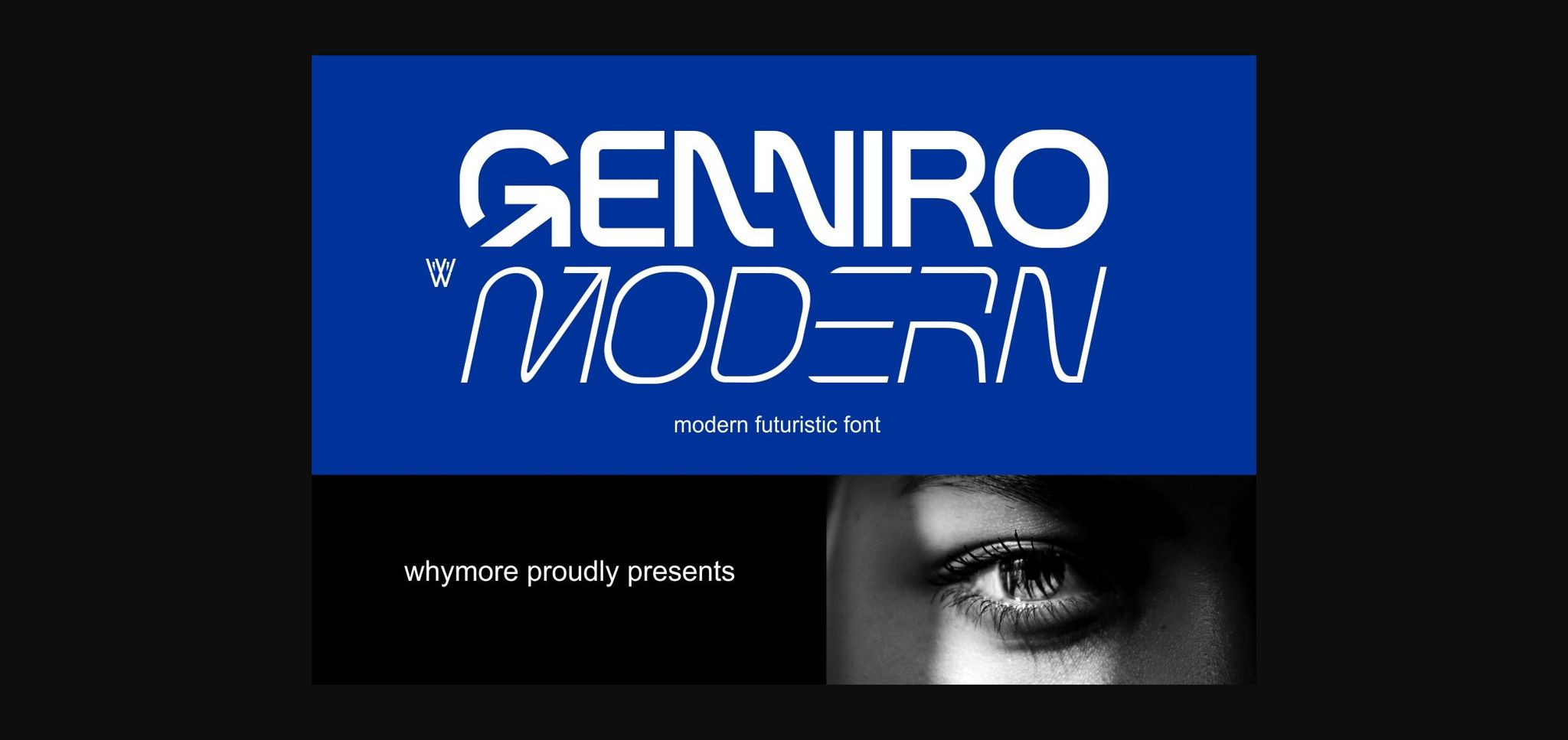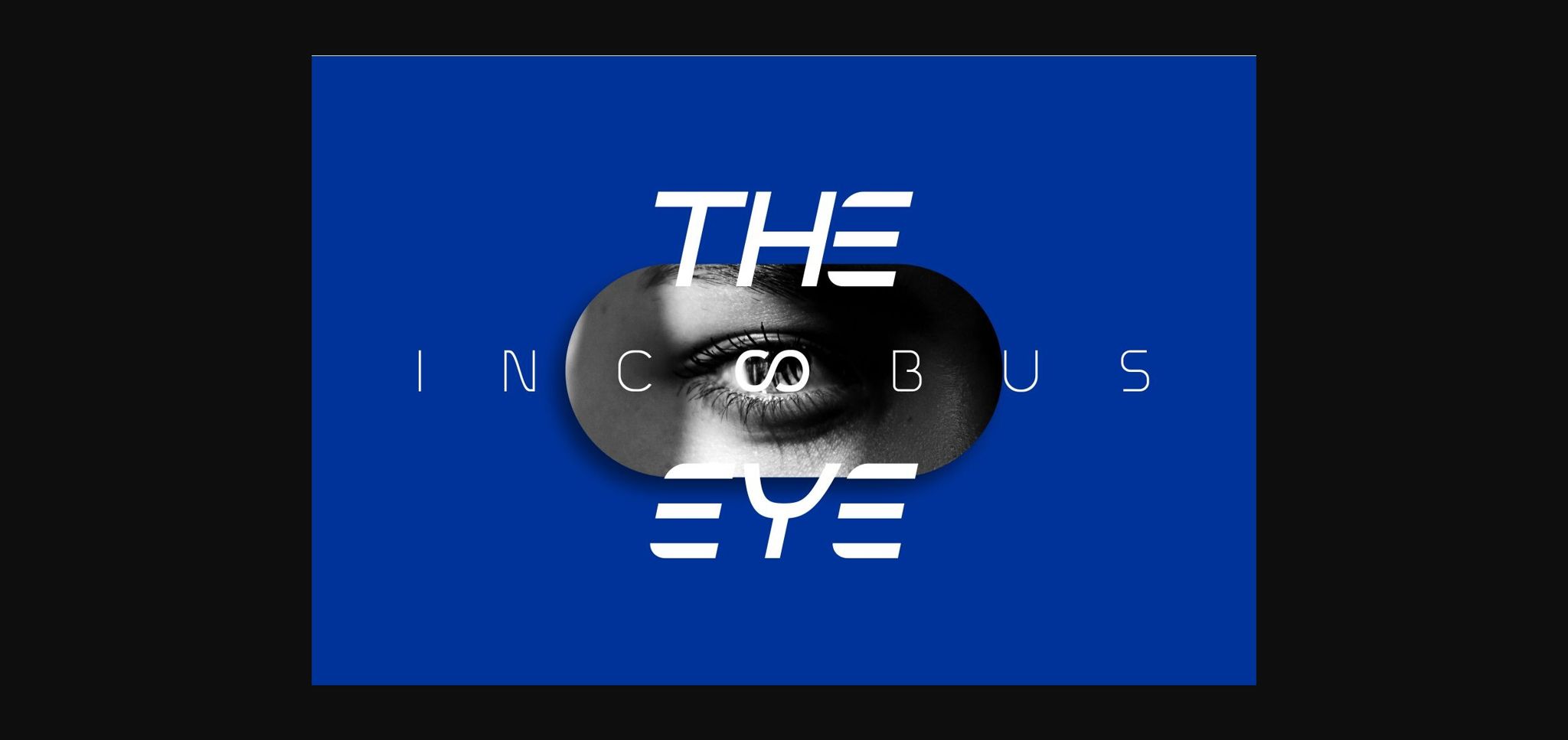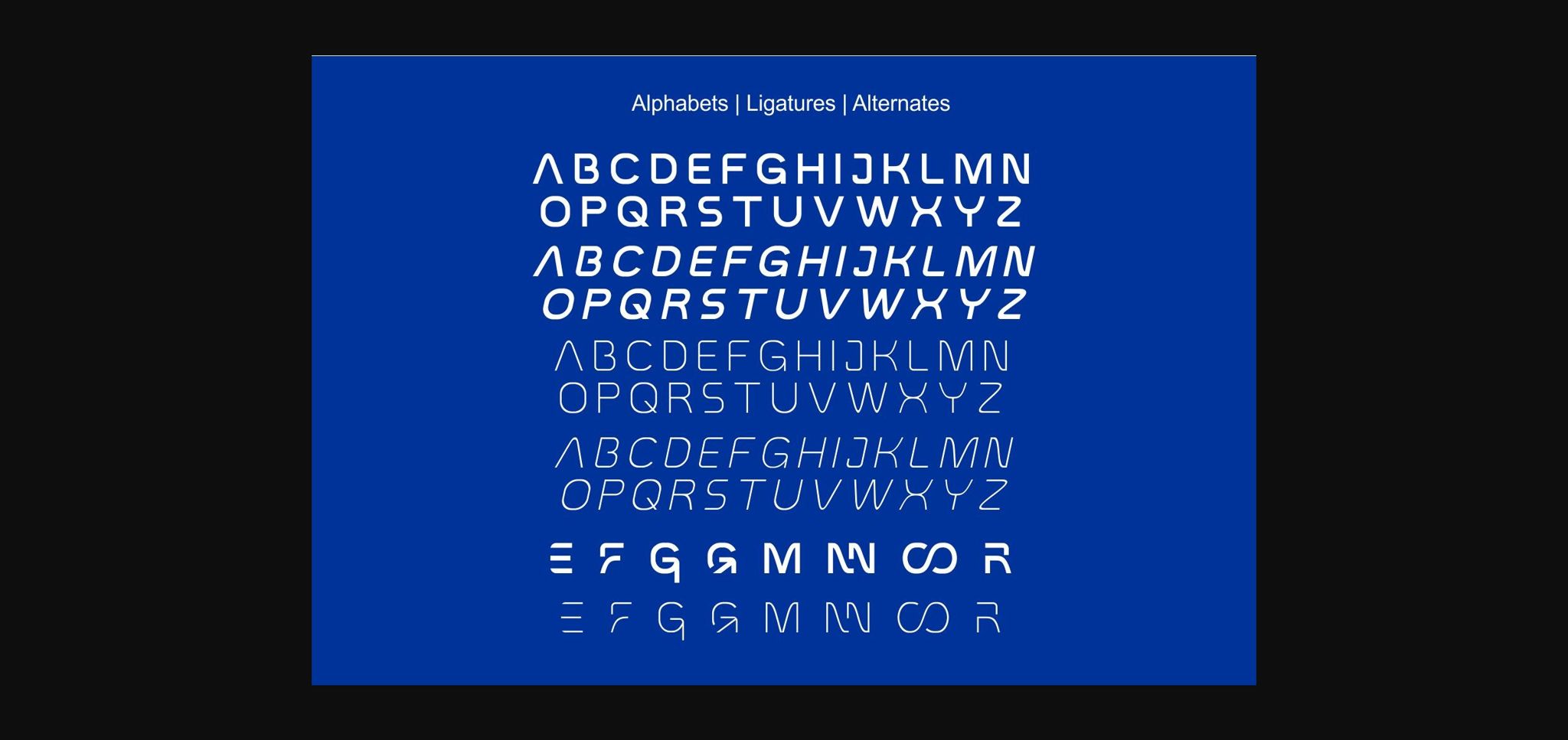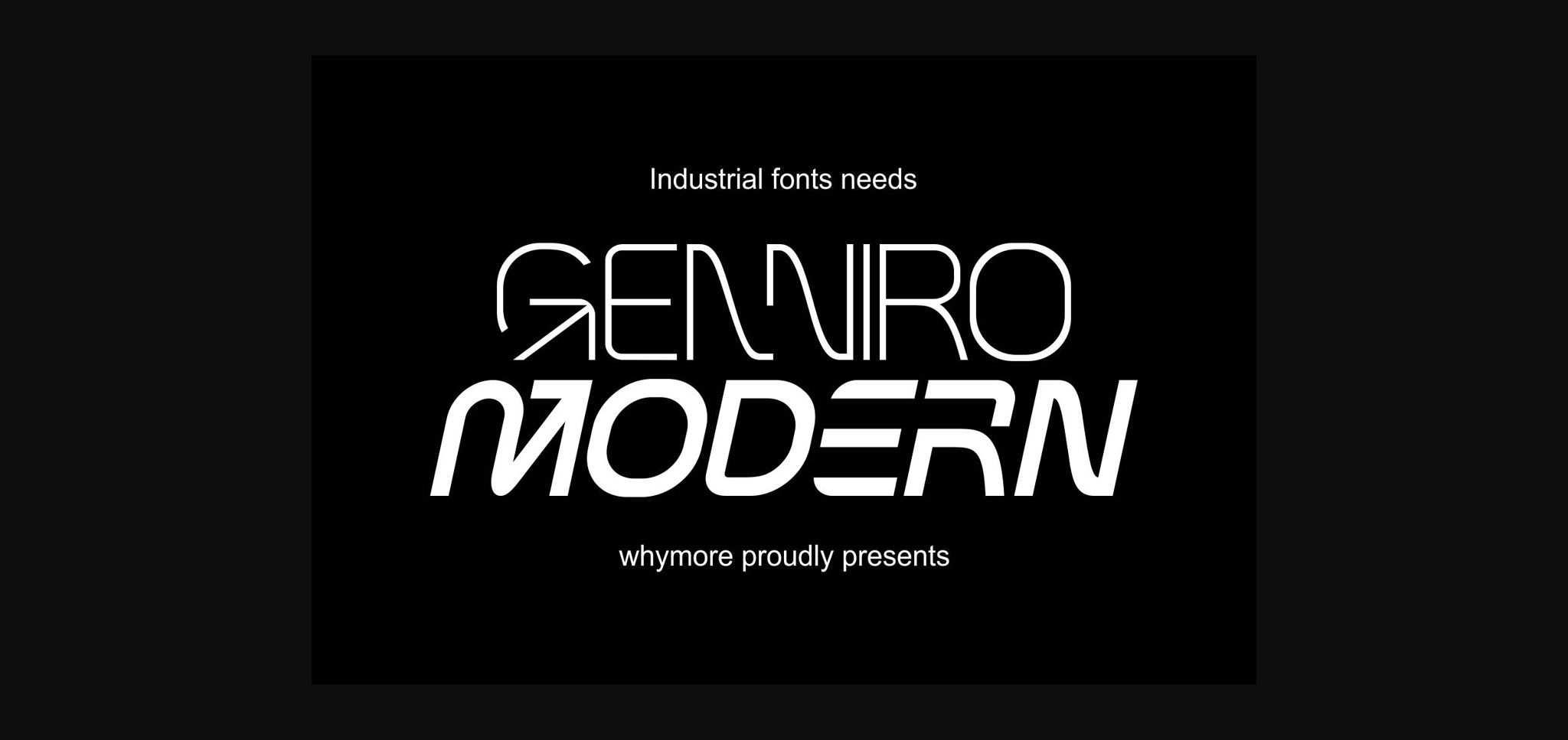
About Genniro Font
The versatile nature of the Genniro font makes it suitable for headlines, logos and lettering. Its legibility ensures clear communication yet invites a sharp eye catch. Genniro is the perfect choice for those looking for a typeface that embodies the Future and sophistication that will not be limited by time. With a futuristic style but with a Y2k sytles feel, it can bring you to a different visual work.